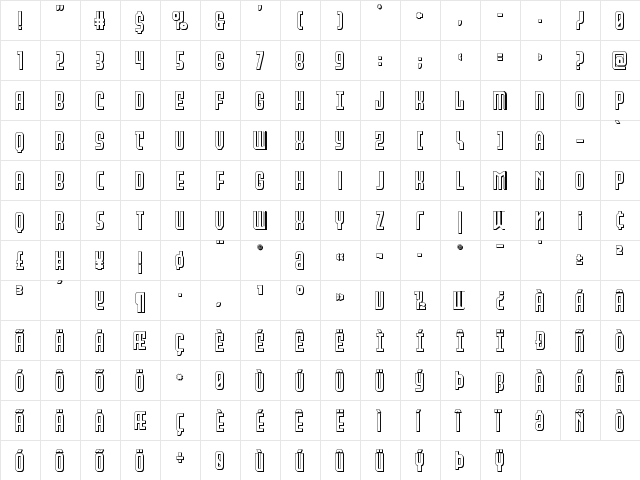
Peace & Houston 3D Regular
Peace & Houston 3D is a composed and adaptable typeface that performs quietly and consistently across a wide range of design contexts.